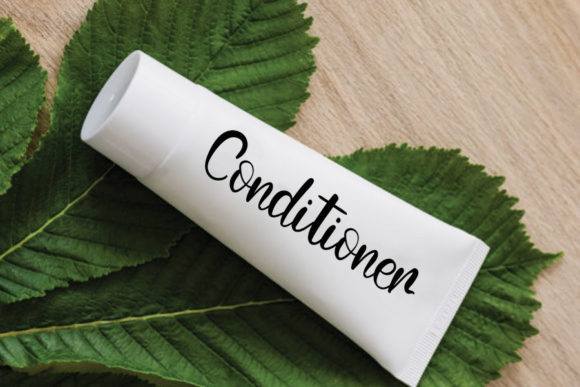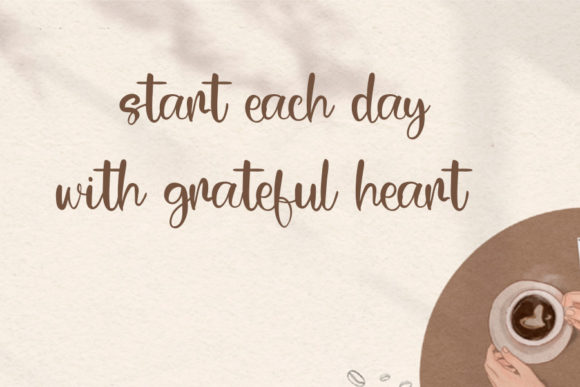
Fantastic Font
db-ku.com - Script & Handwritten -- Fantastic is a playful handwritten font. Its natural and unique style makes it incredibly fitting to a large pool of designs. The only limit is your imagination!